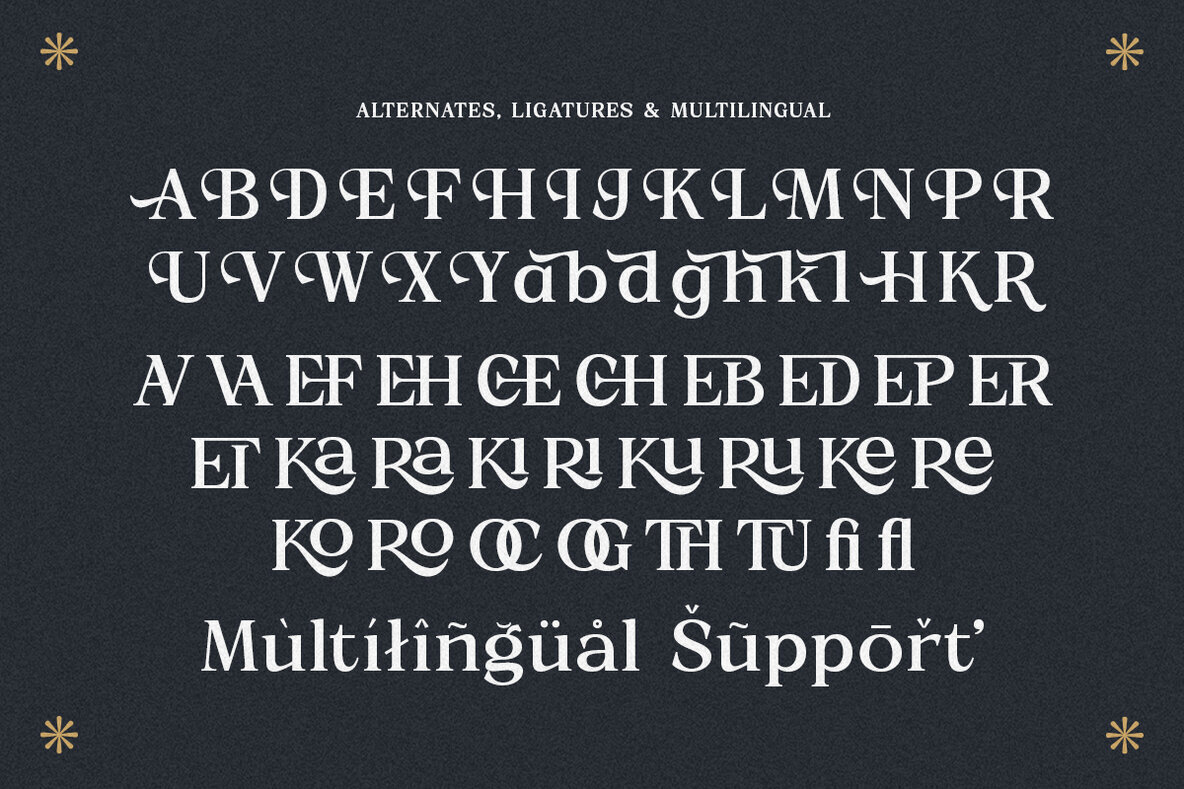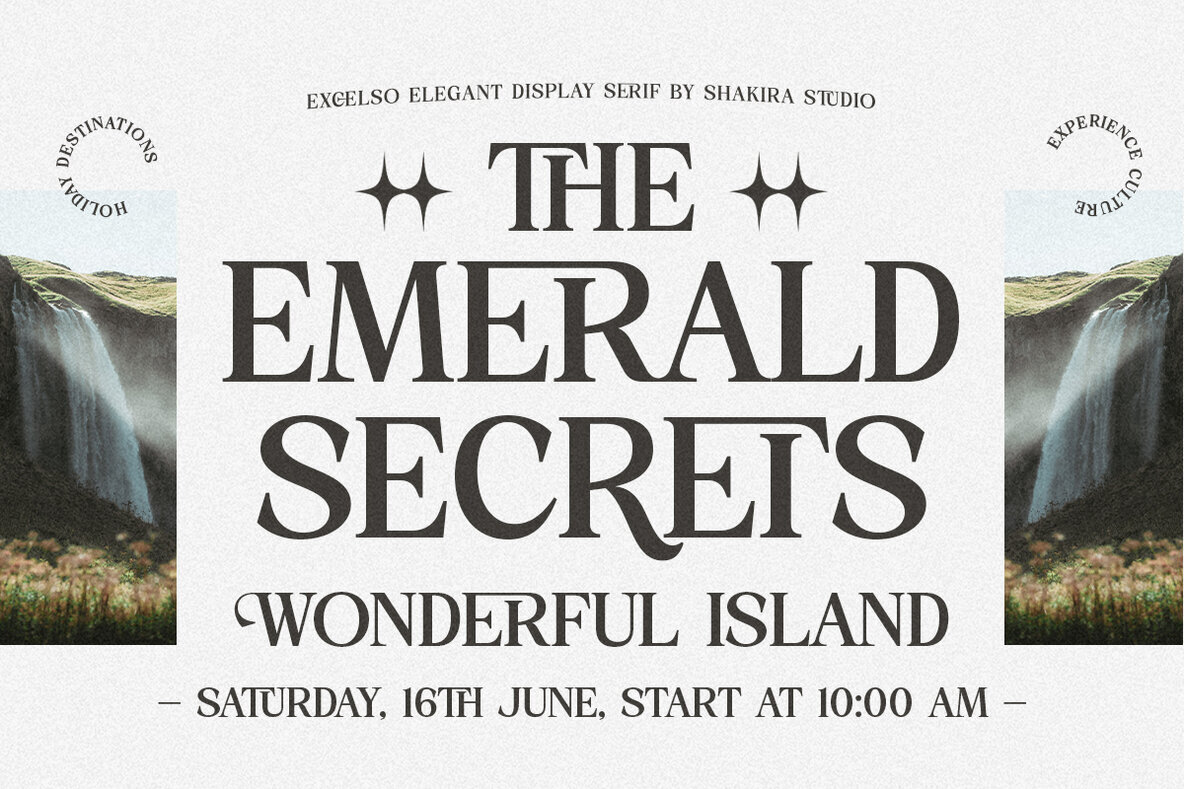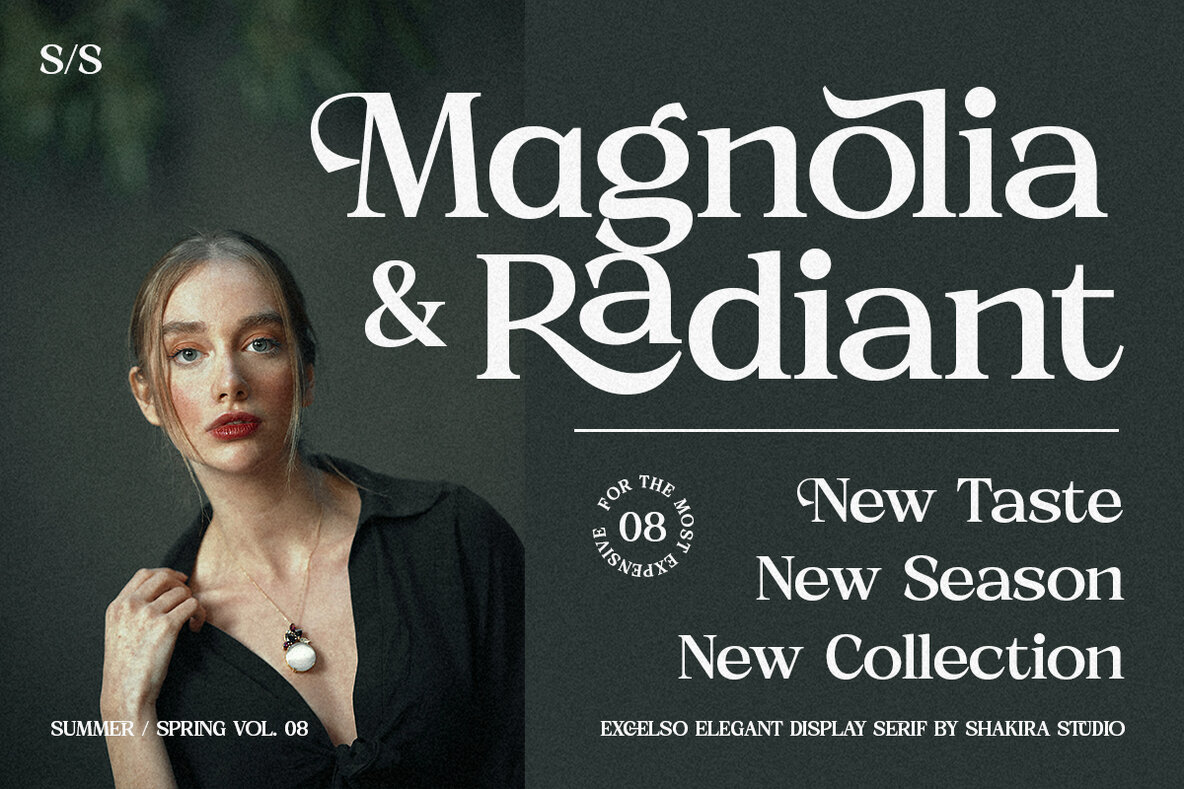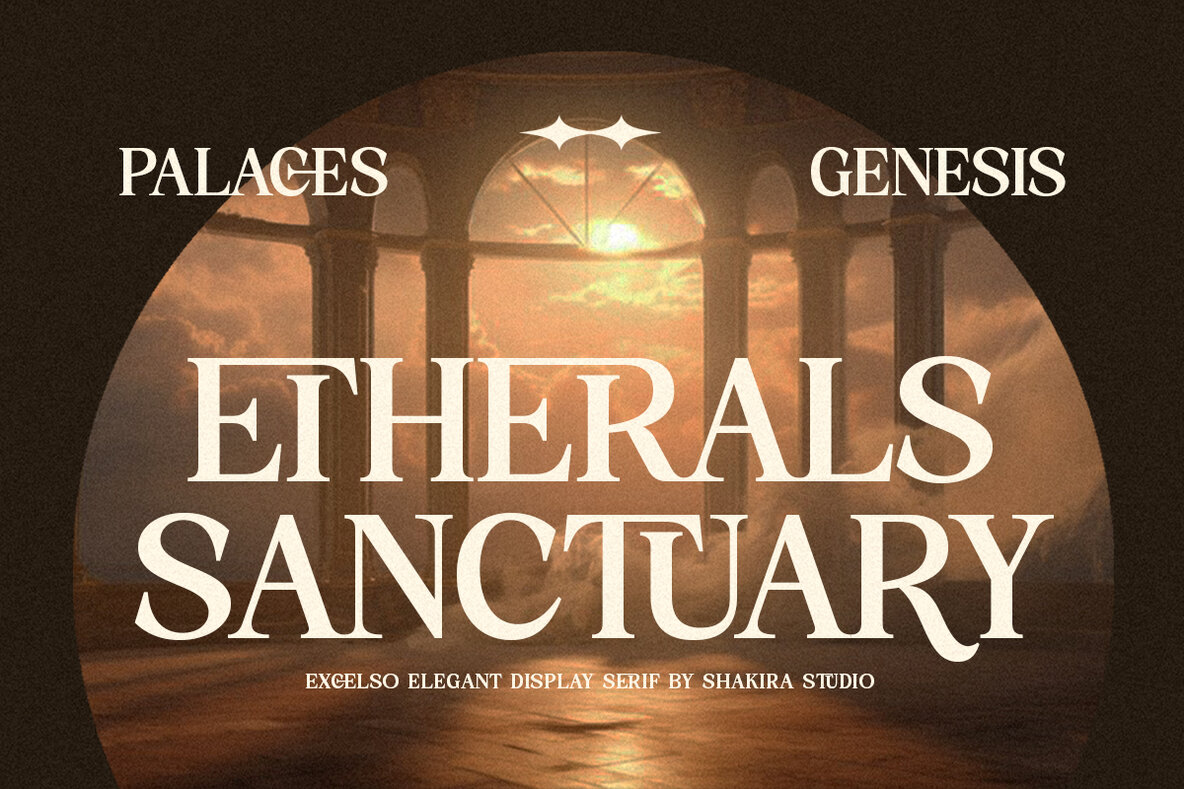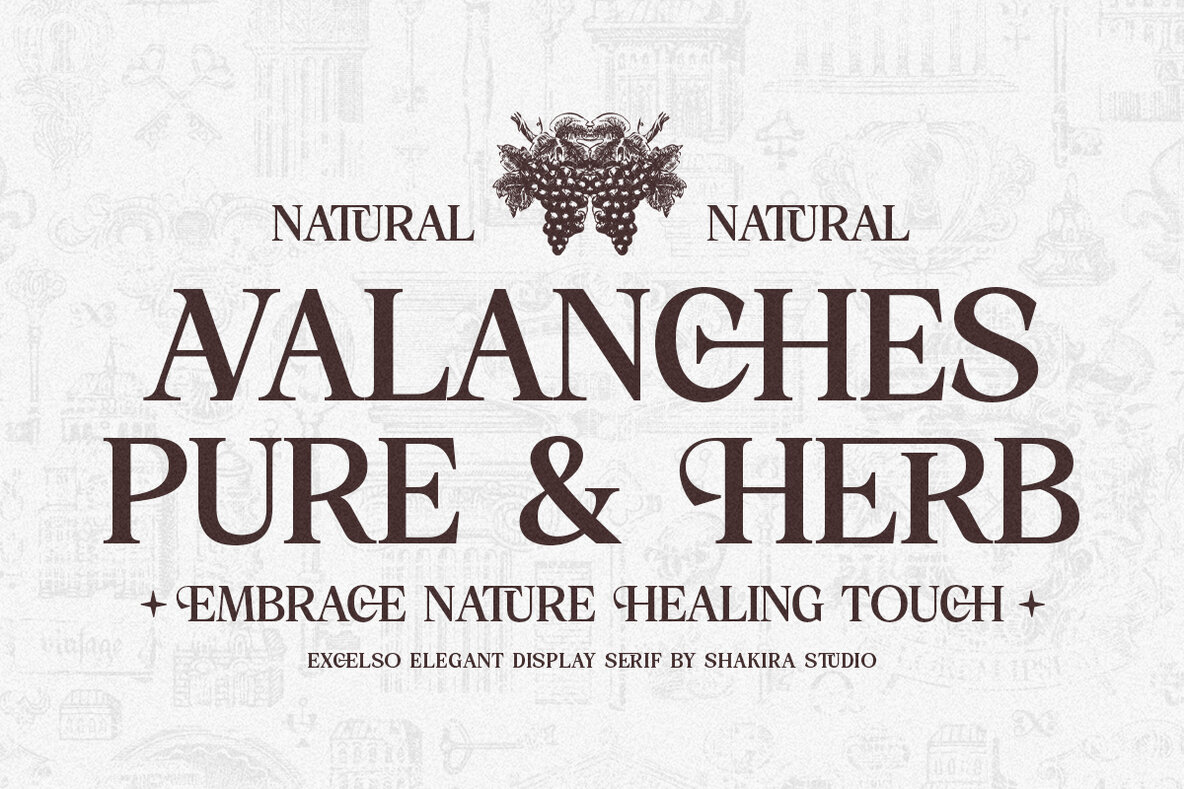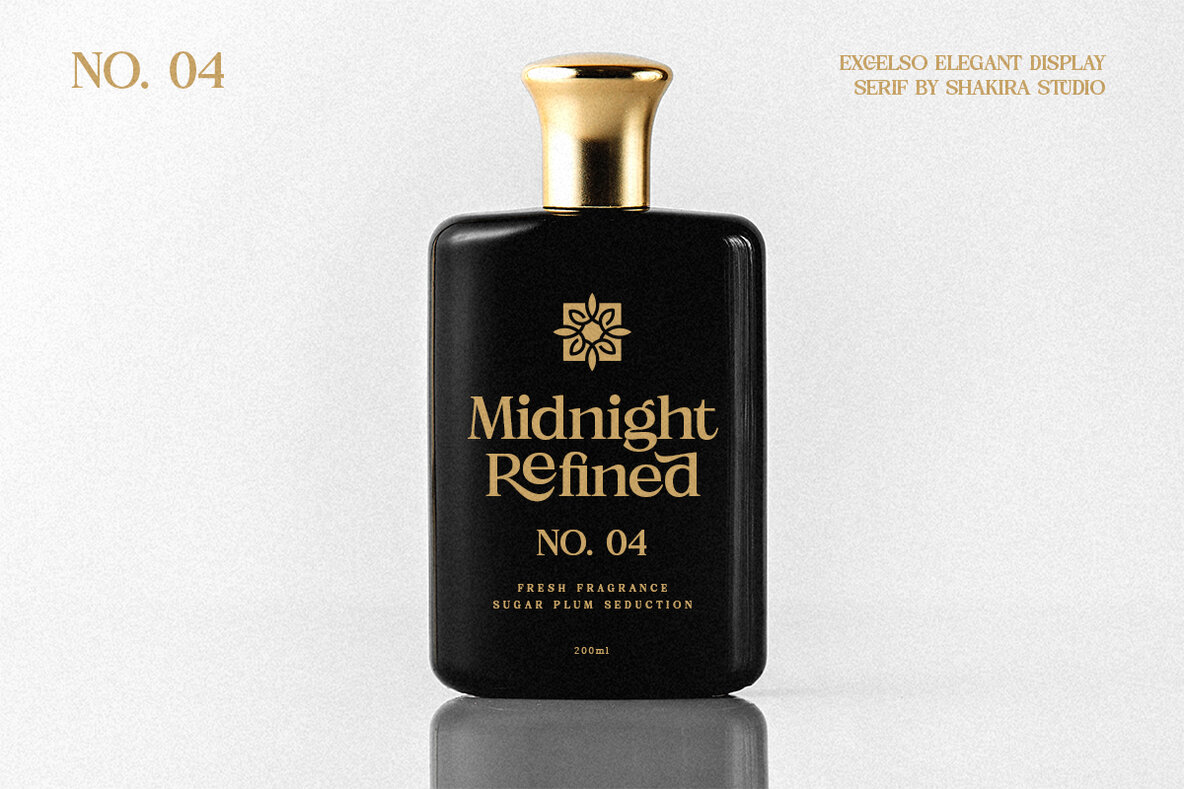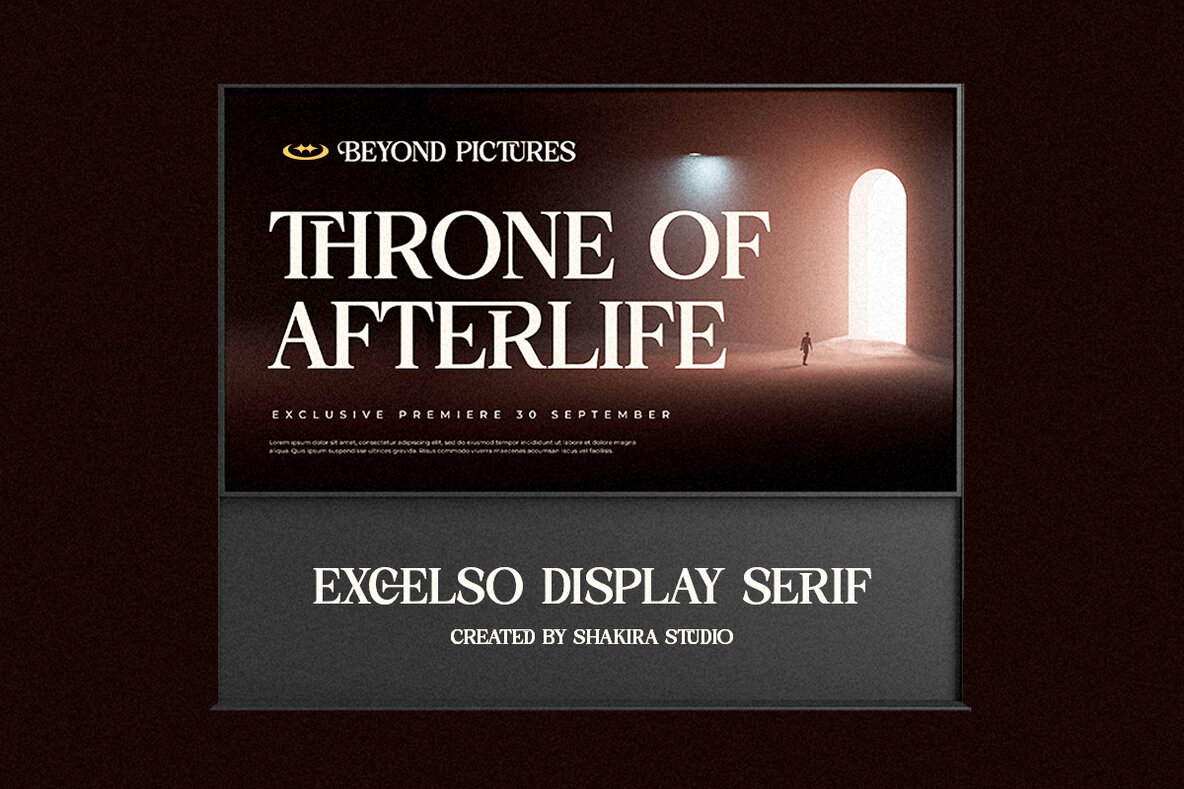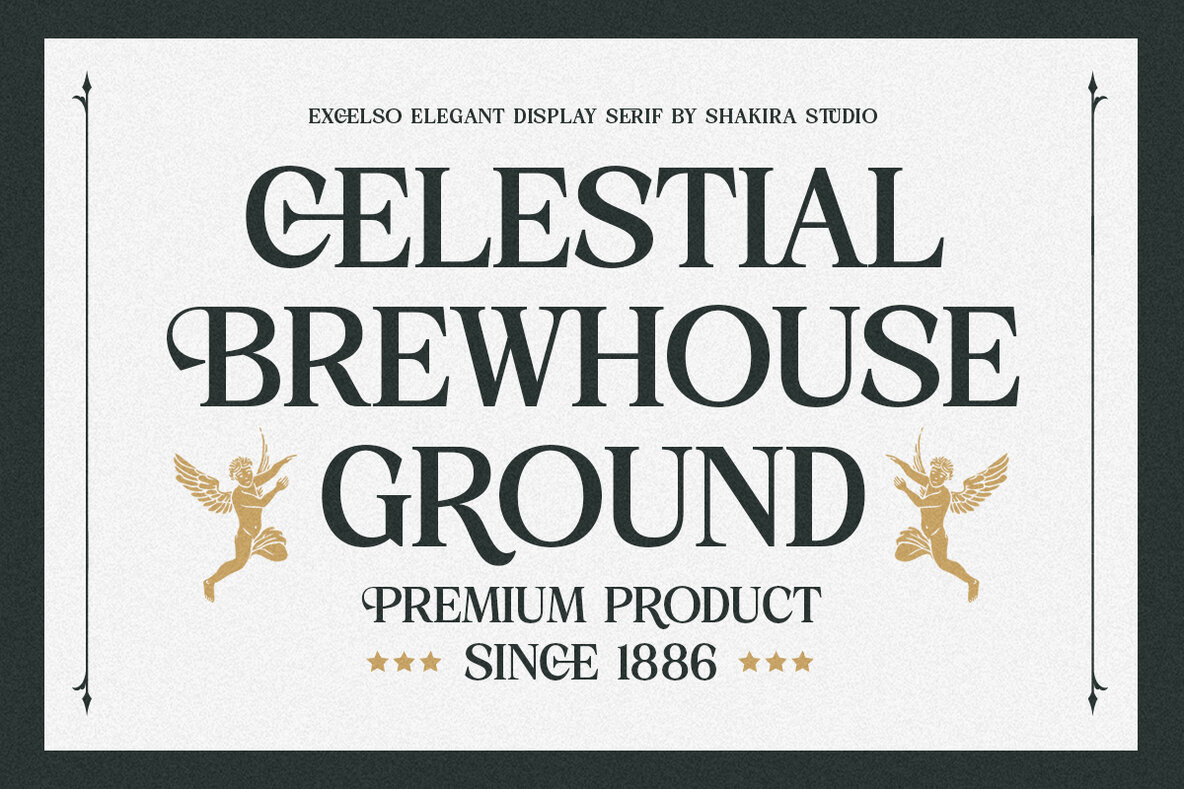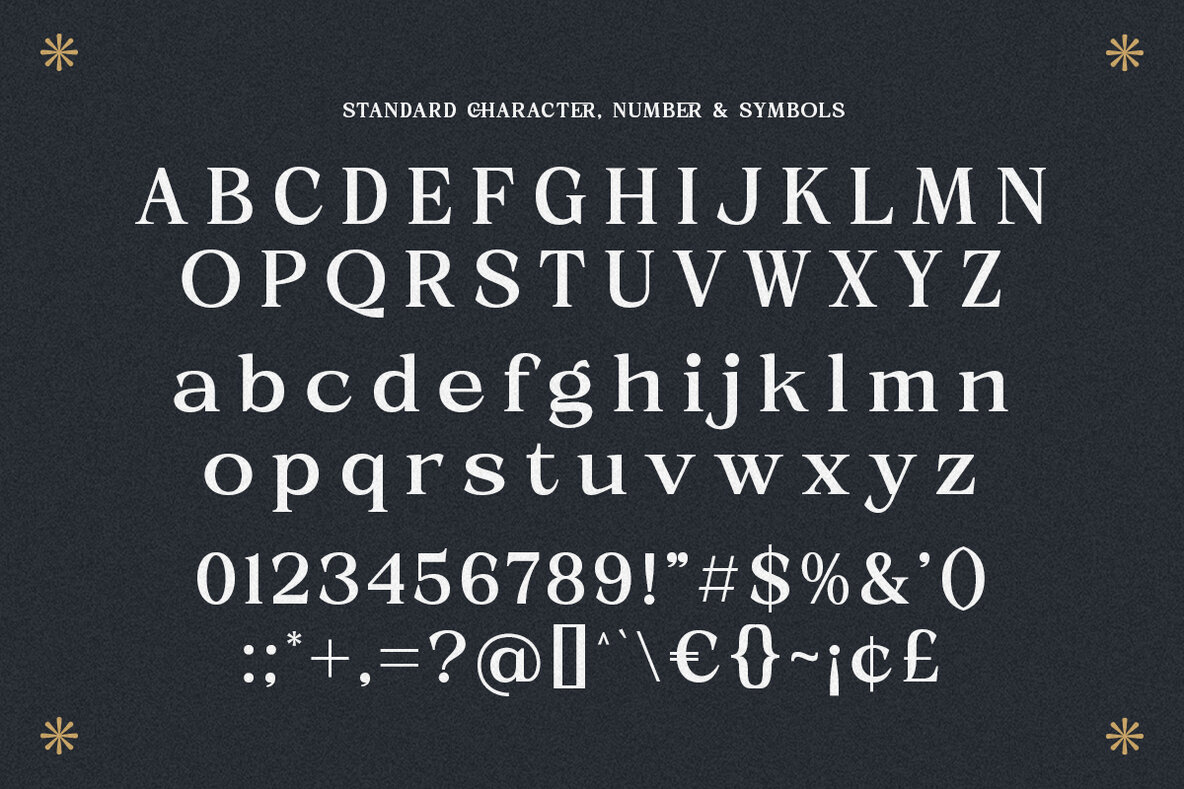
Excelso Font
Excelso Regular
Excelso Italic
Excelso is an Elegant Serif font designed to bring luxury and elegance to every design work. Available in regular and italic versions, this font offers great flexibility for a variety of purposes, from editorial to branding. With its smooth and bold serif characteristics, and support for alternates and ligatures, Excelso is the right choice for projects that require a classic and classy touch. Here's what you get: Multilingual character supports : (Afrikaans, Albanian, Catalan, Croatian, Czech, Danish, Dutch, English, Estonian, Finnish, French, German, Hungarian, Icelandic, Italian, Lithuanian, Maltese, Norwegian, Polish, Portuguese, Slovenian, Spanish, Swedish, Turkish, Zulu)